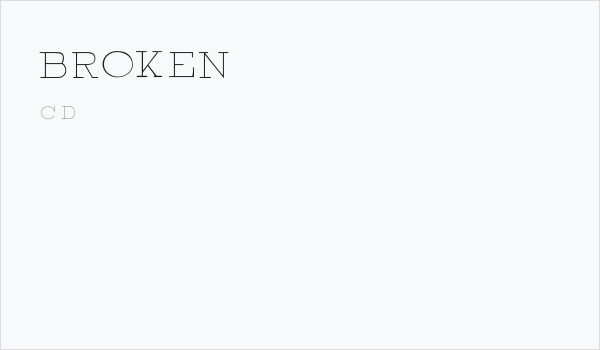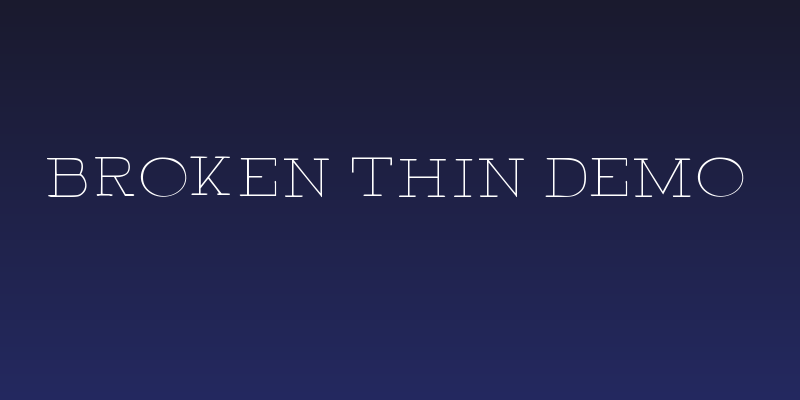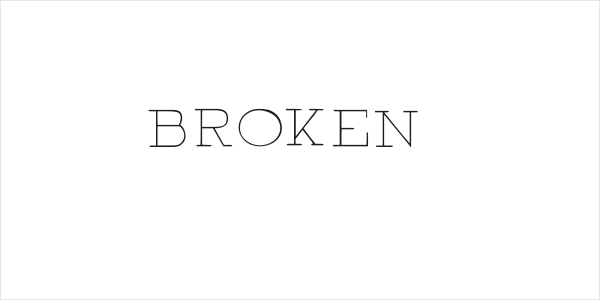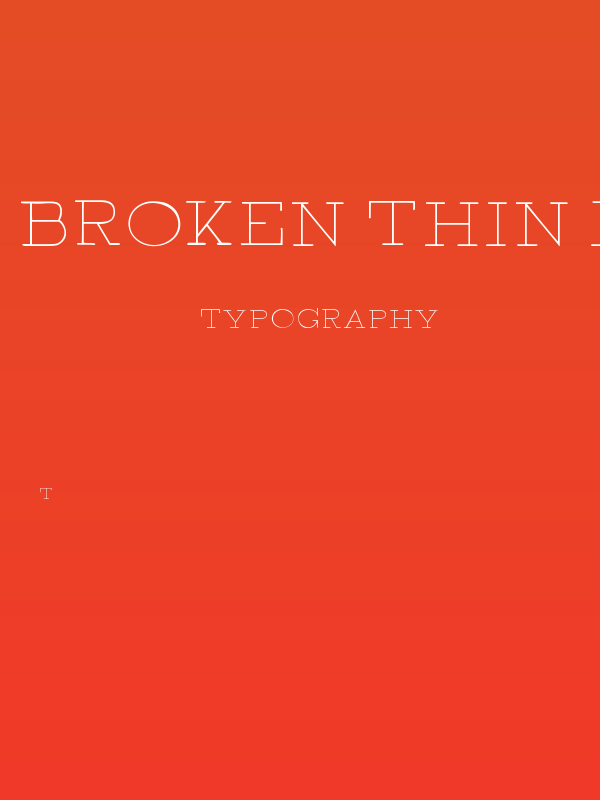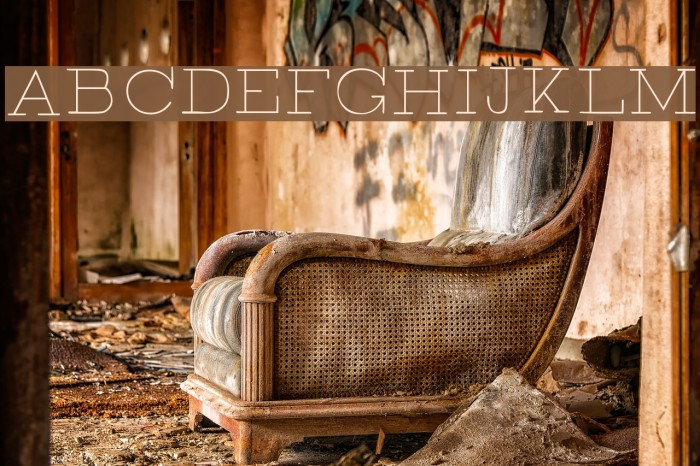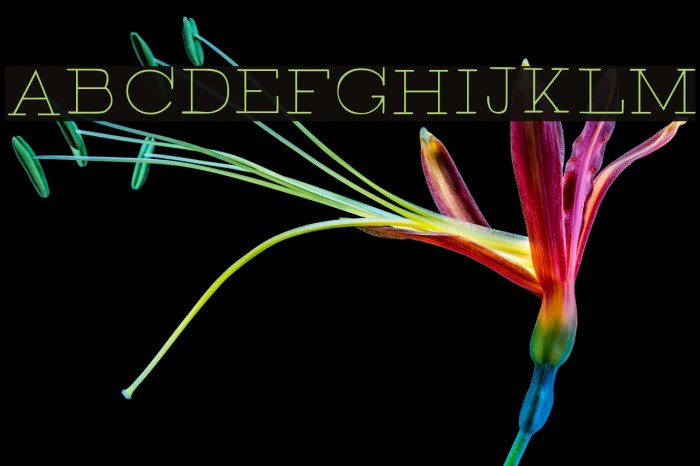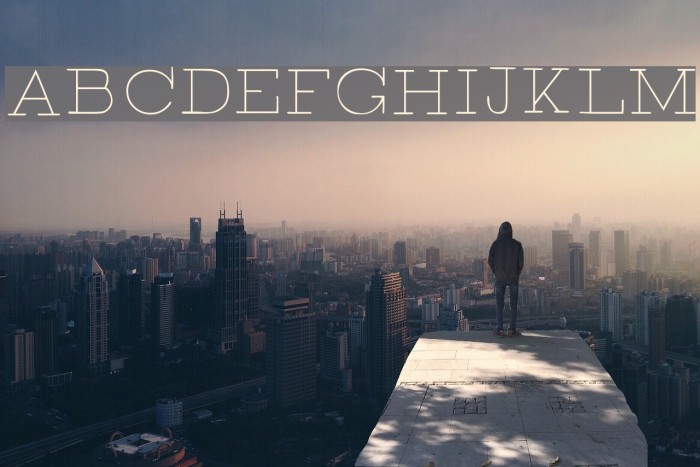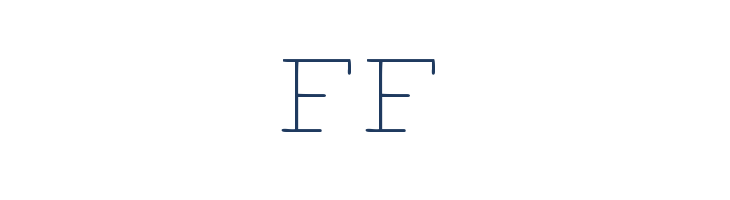
BROKEN thin demo Font
This font features a modern and minimalist design with thin, clean lines and a geometric structure. The uppercase letters are evenly spaced, providing a balanced and airy appearance. The strokes are consistent in thickness, contributing to a sleek and elegant look. The font's simplicity and clarity make it suitable for a variety of design applications, from digital to print. Its understated style allows it to complement other design elements without overpowering them.
| Proposed Projects | Ideal for branding, editorial design, minimalist posters, and digital interfaces. |